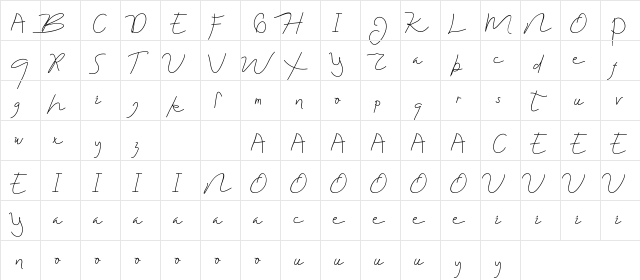
Guritno Demo Script Regular
| Foundry | Edric Studio |
| Designer | Yasri Ainun N & Sarah Suci Pauziah |
Design Context for Guritno Demo Script Typeface
Guritno Demo Script brings a calligraphic fluidity to the page — its connecting strokes and expressive curves give it an unmistakably human quality.